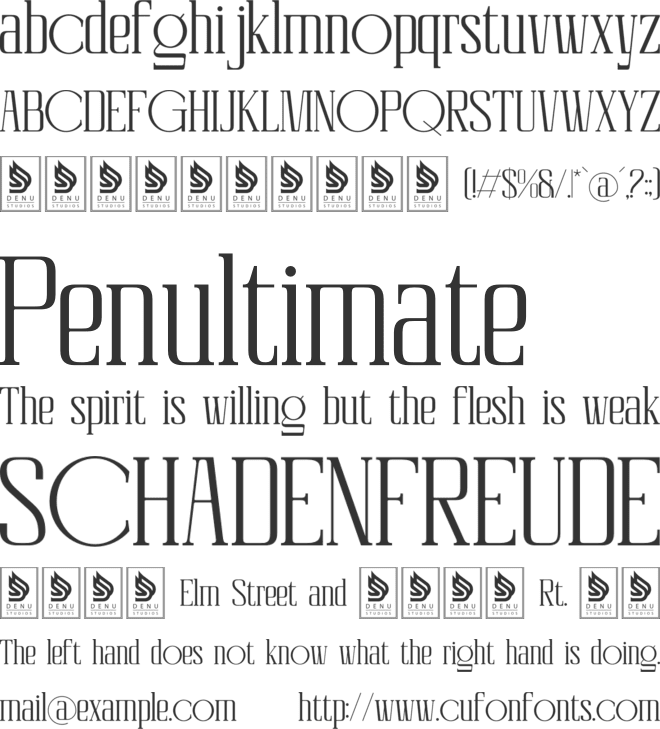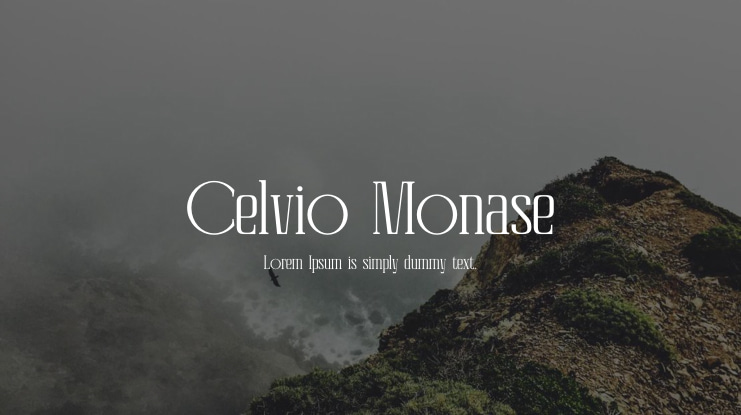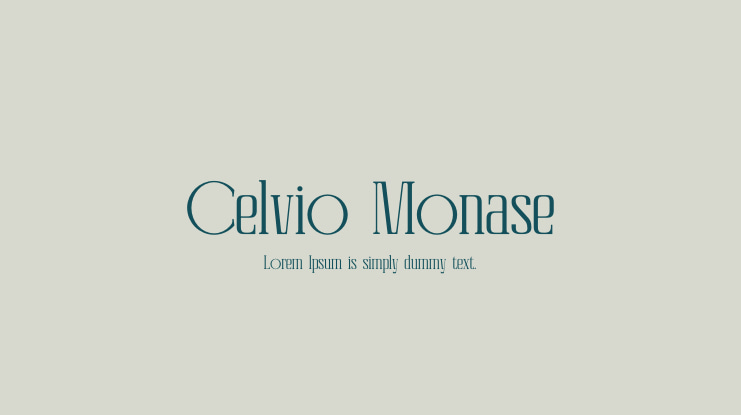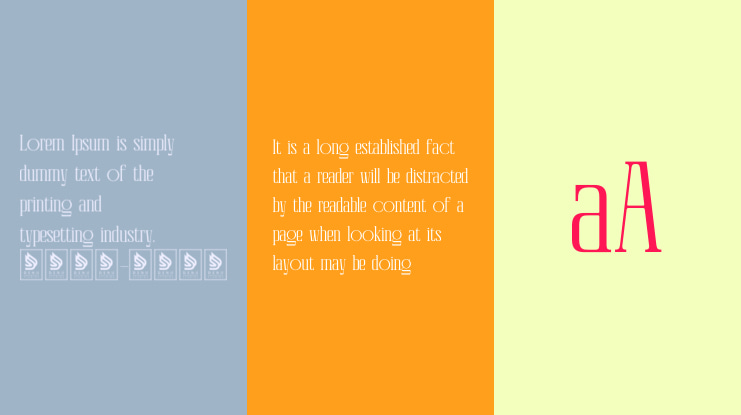
Celvio Monase | New Display Serif product packaging, mugs, quotes, posters, shopping bags, t-shirts, book covers, name card, invitation cards, greeting cards, label, photography, watermark, special events, and all your other lovely projects that need a New Display Serif taste.